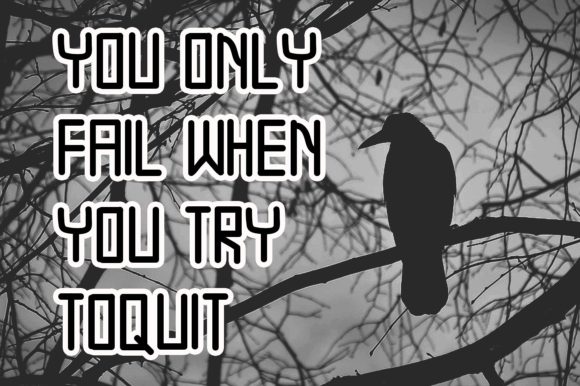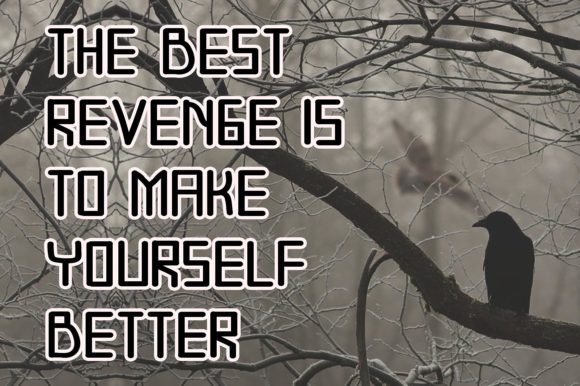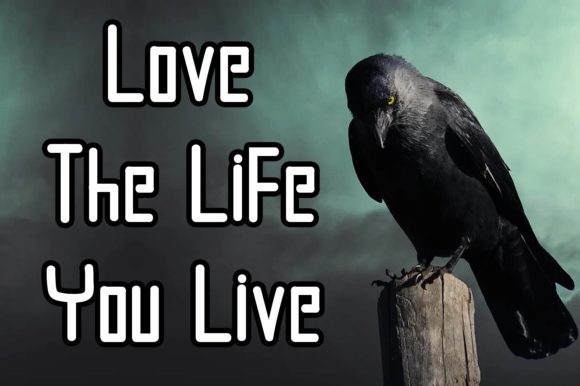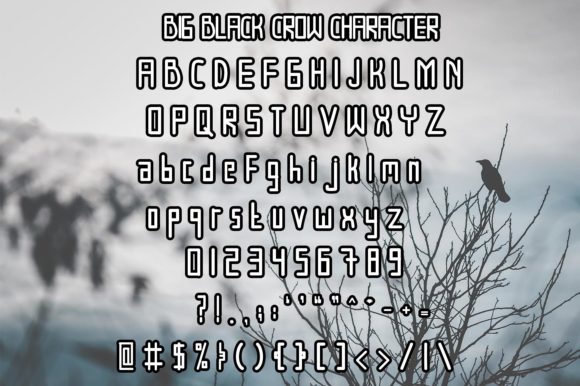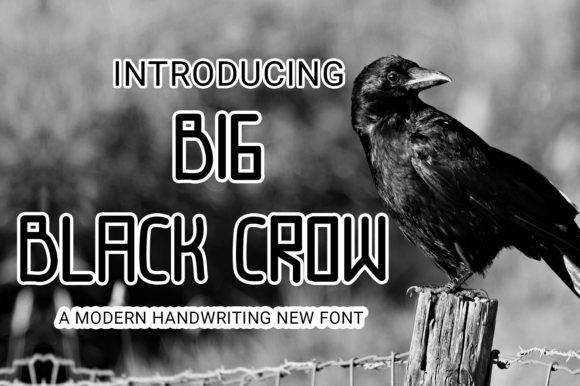
Introducing Big Black Crow Font: The Ultimate Display Font for Creative Projects
Are you a designer, crafty DIY enthusiast, or social media influencer looking for a font that can elevate your creative projects? Look no further than the Big Black Crow font! This adorable and casual display font is perfect for making a statement and turning your ideas into stunning works of art.
What Makes Big Black Crow Font So Special?
Big Black Crow is a versatile font that can be used in a variety of contexts, from logos and headings to t-shirts, letterhead, signage, labels, and more. Its unique charm and character make it an excellent choice for designers and crafters who want to add a personal touch to their projects.
Perfect for Instagram and Social Media
In today’s digital age, having a strong online presence is crucial. Big Black Crow font is perfect for Instagram and other social media platforms, where visuals play a significant role in capturing users’ attention. Use it to create eye-catching posts, stories, and captions that will make your followers stop scrolling and take notice.
Great for DIY Projects and Calligraphy Scripts
If you’re a crafty DIY enthusiast, you’ll love Big Black Crow font for your calligraphy scripts and hand-lettering projects. Its casual and playful vibe makes it perfect for creating beautiful, handmade cards, invitations, and gifts. Whether you’re a beginner or an experienced crafter, this font will inspire you to create something truly special.
The possibilities are endless with Big Black Crow font. Here are some ideas to get you started:
- Logos and branding materials: Create a memorable logo for your business or personal brand.
- Headings and titles: Add a touch of elegance and sophistication to your blog posts, articles, and website content.
- T-shirts and apparel: Design custom t-shirts, hoodies, and hats that will make a statement.
- Letterhead and stationery: Elevate your business correspondence with stylish and professional letterhead.
- Signage and labels: Create eye-catching signs and labels for your business, event, or DIY project.
- Posters and flyers: Design stunning posters and flyers that will grab attention and convey your message.
- Badges and stickers: Create custom badges and stickers for events, promotions, or giveaways.
Why Choose Big Black Crow Font?
So, why should you choose Big Black Crow font for your creative projects? Here are just a few reasons:
- Unique and eye-catching: Big Black Crow font has a distinctive charm that will set your projects apart from the rest.
- Versatile: This font can be used in a wide range of contexts, from digital media to print materials.
- Easy to read: Despite its bold and playful design, Big Black Crow font is easy to read, even at smaller sizes.
- Customizable: Experiment with different colors, textures, and styles to make the font your own.
In conclusion, Big Black Crow font is an excellent choice for designers, crafters, and social media enthusiasts who want to add a touch of personality to their creative projects. Its unique charm, versatility, and ease of use make it perfect for a wide range of applications. So why wait? Download Big Black Crow font today and start turning your ideas into stunning works of art!
Whether you’re a seasoned designer or a DIY novice, Big Black Crow font is sure to inspire your creativity and take your projects to the next level. So go ahead, get creative, and show the world what you’re working with!